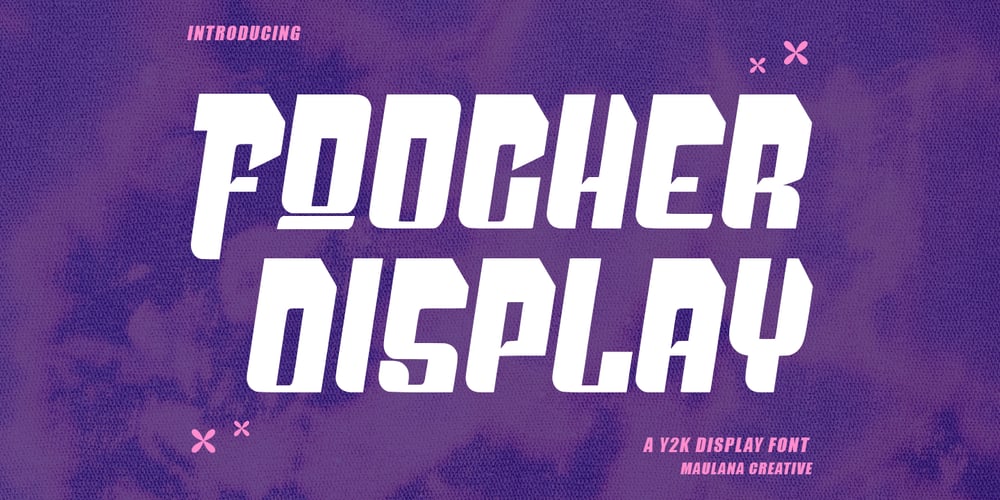
MC Foocher
MC Foocher font
MC Foocher Font Family was designed by Gilang Maulana and published by Maulana Creative. MC Foocher contains 1 styles and family package options. Foocher y2k display font is a modern font. With bold stroke, fun character with alternates. To give you an extra creative work. Foocher font support multilingual language. This font is good for logo design, Social media, Movie Titles, Books Titles, a short text even a long text letter and good for your secondary text font with sans or serif. Make a stunning work with Foocher font.Cheers,Maulana Creative